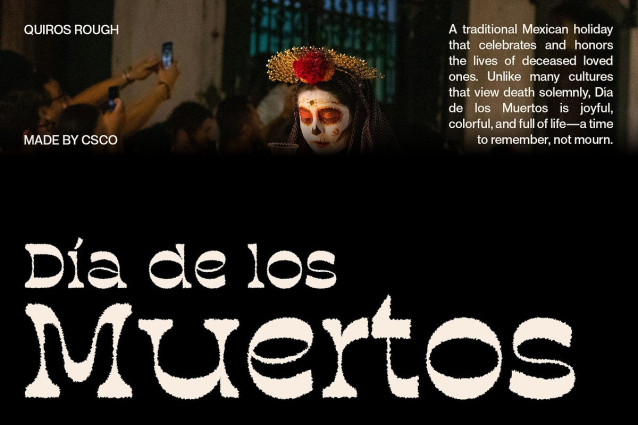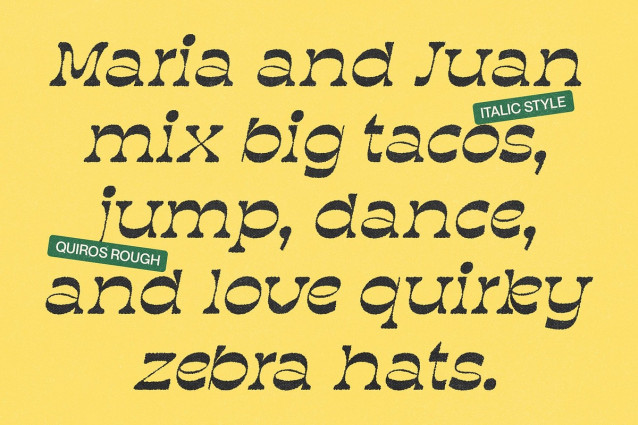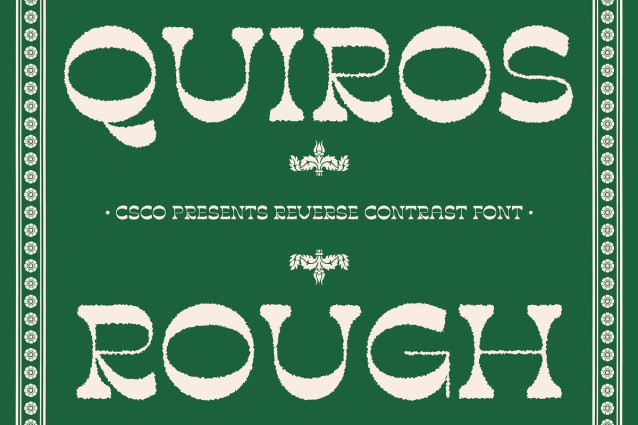
Quiros Rough Font
Quiros Rough Font is a display serif font that flips traditional stroke weights on their head. Featuring reverse contrast, where horizontal strokes are thicker than vertical ones, it delivers an unexpected and captivating visual rhythm. This design choice not only enhances uniqueness but also gives every letter a bold, expressive stance perfect for catching the eye.
Rough Texture for Gritty Personality The rough texture finish brings a raw, handcrafted feel that adds depth and organic character. This tactile quality sets Quiros Rough apart from cleaner display fonts, making it feel more vibrant and authentic. It’s ideal for projects that want to inject a bit of imperfection and artistic flair, while still maintaining strong typographic structure.
Retro Funky Style with Playful Energy Drawing from retro aesthetics and funky visual culture, Quiros Rough embodies a playful spirit with vintage appeal. Its exaggerated contrasts and rough finish evoke a nostalgic yet modern vibe—perfect for music posters, throwback branding, experimental packaging, or anything that craves joyful expression.
Perfect for Eye-Catching Display Design Best used in large-scale typography, Quiros Rough thrives in headlines, logos, posters, and editorial designs. Its commanding presence and textured character ensure your text won’t just be read—it’ll be remembered.